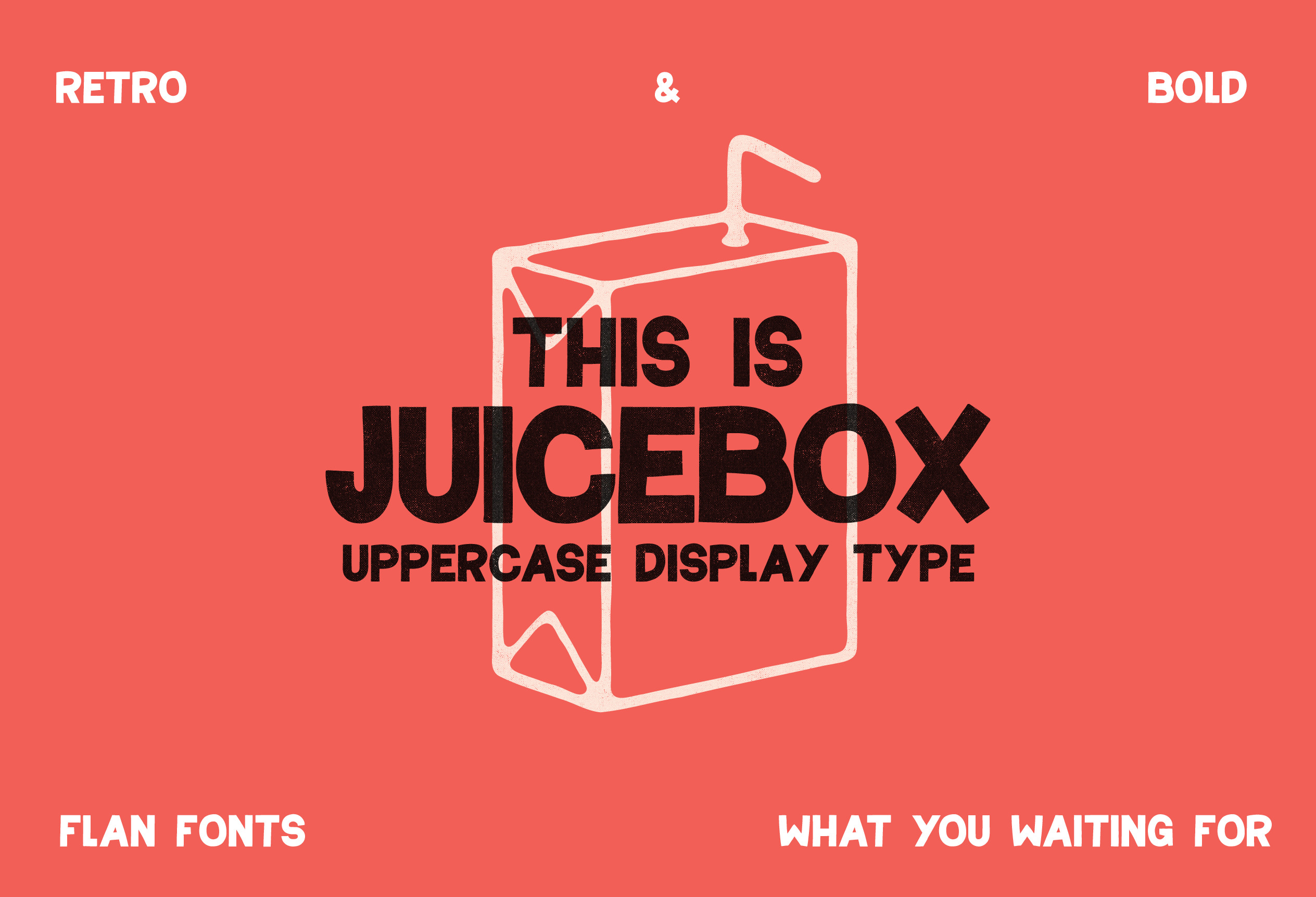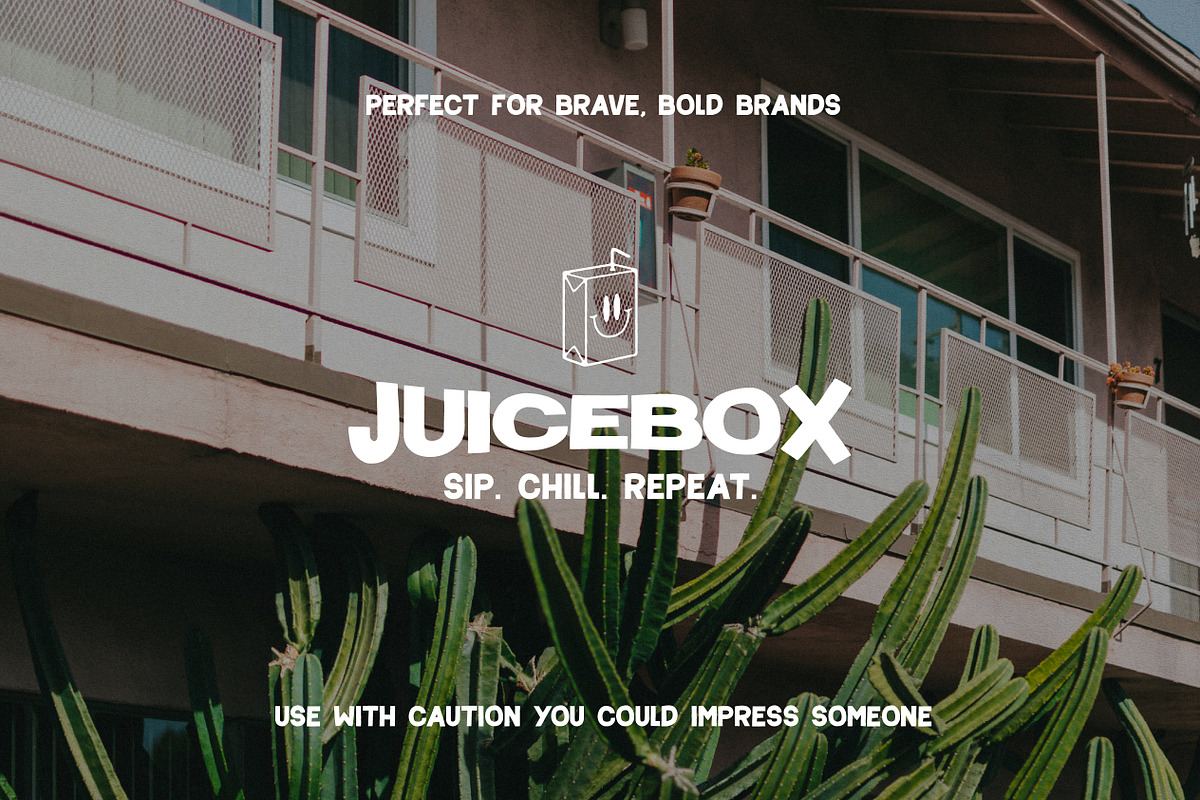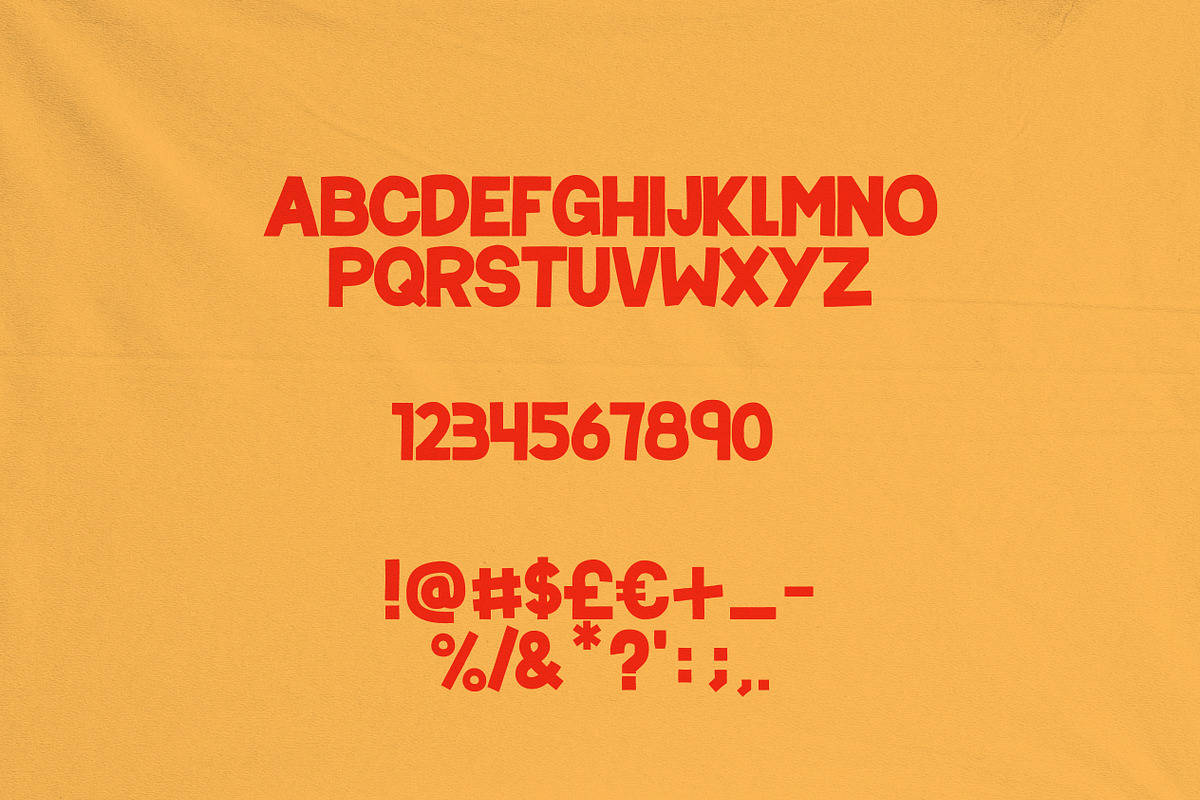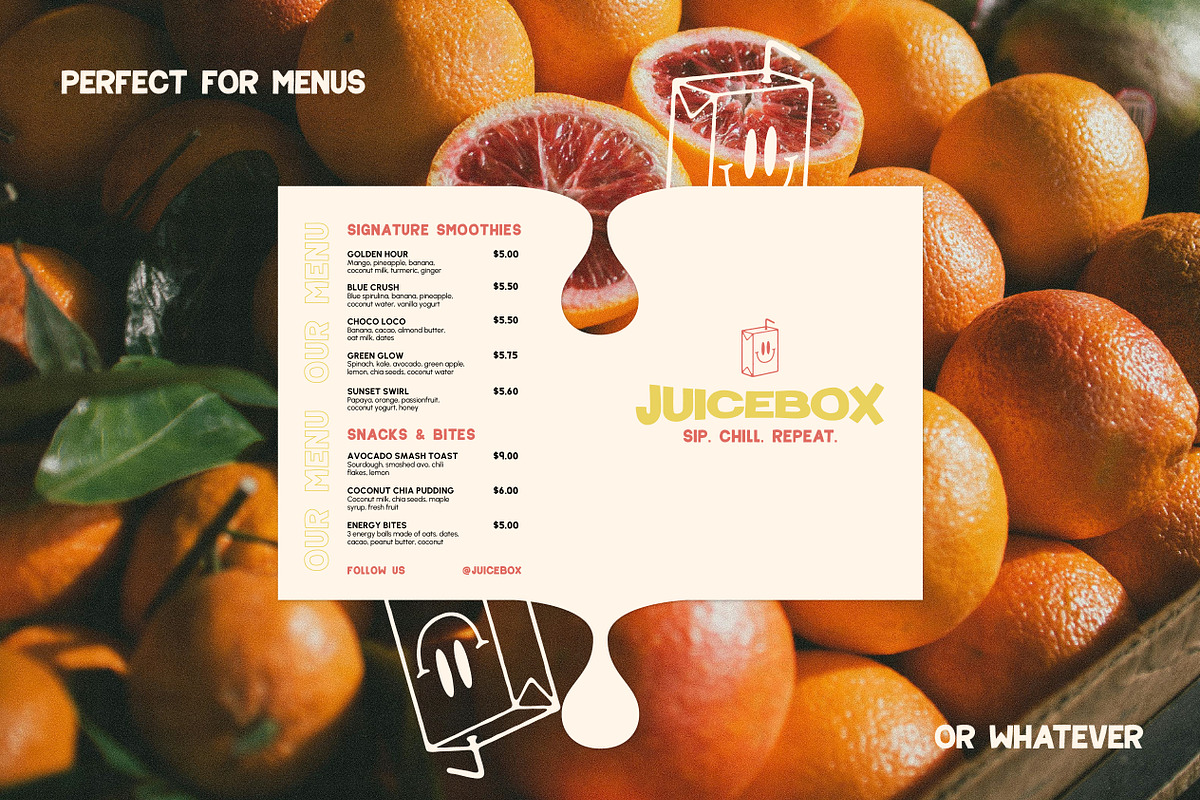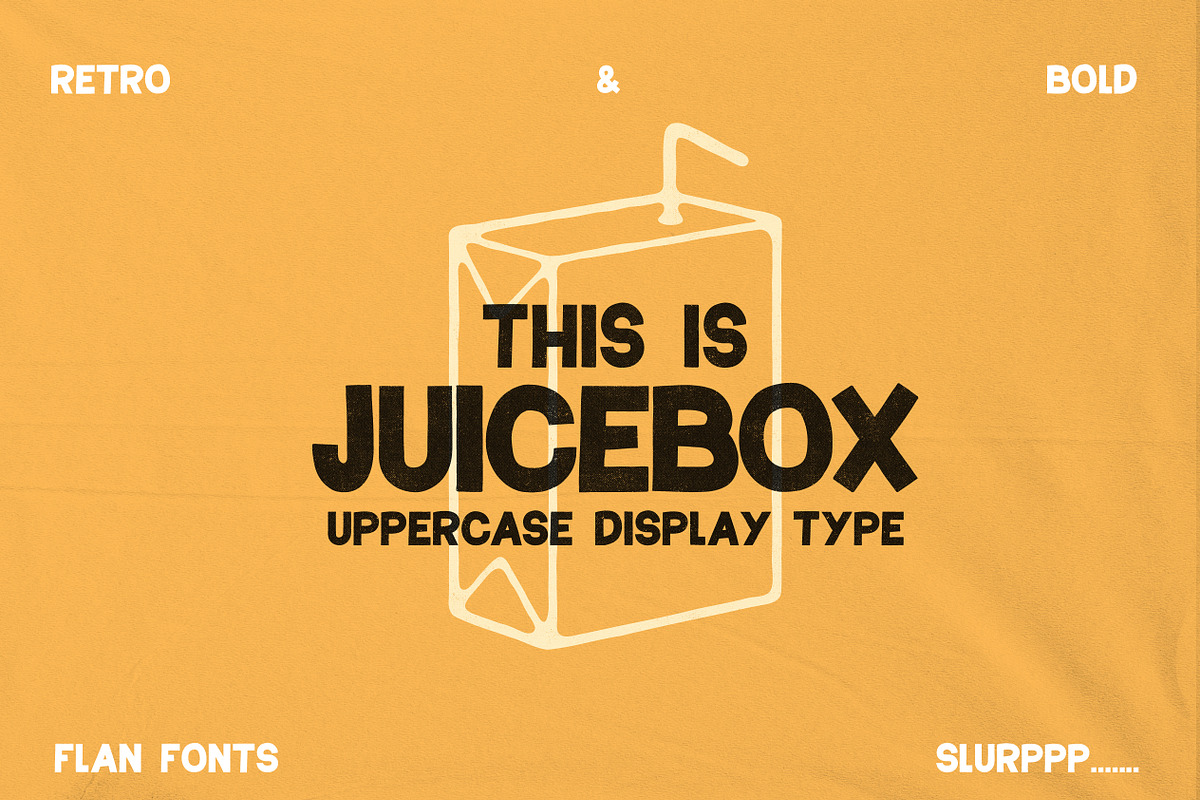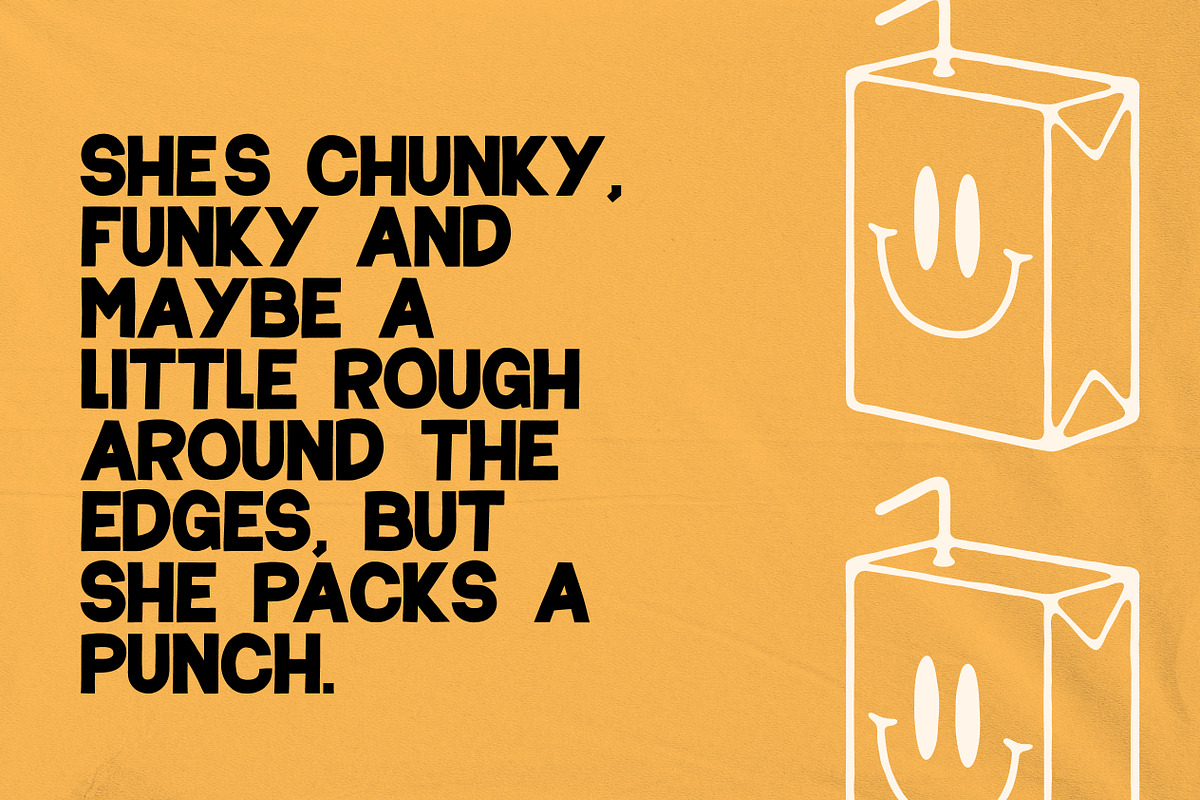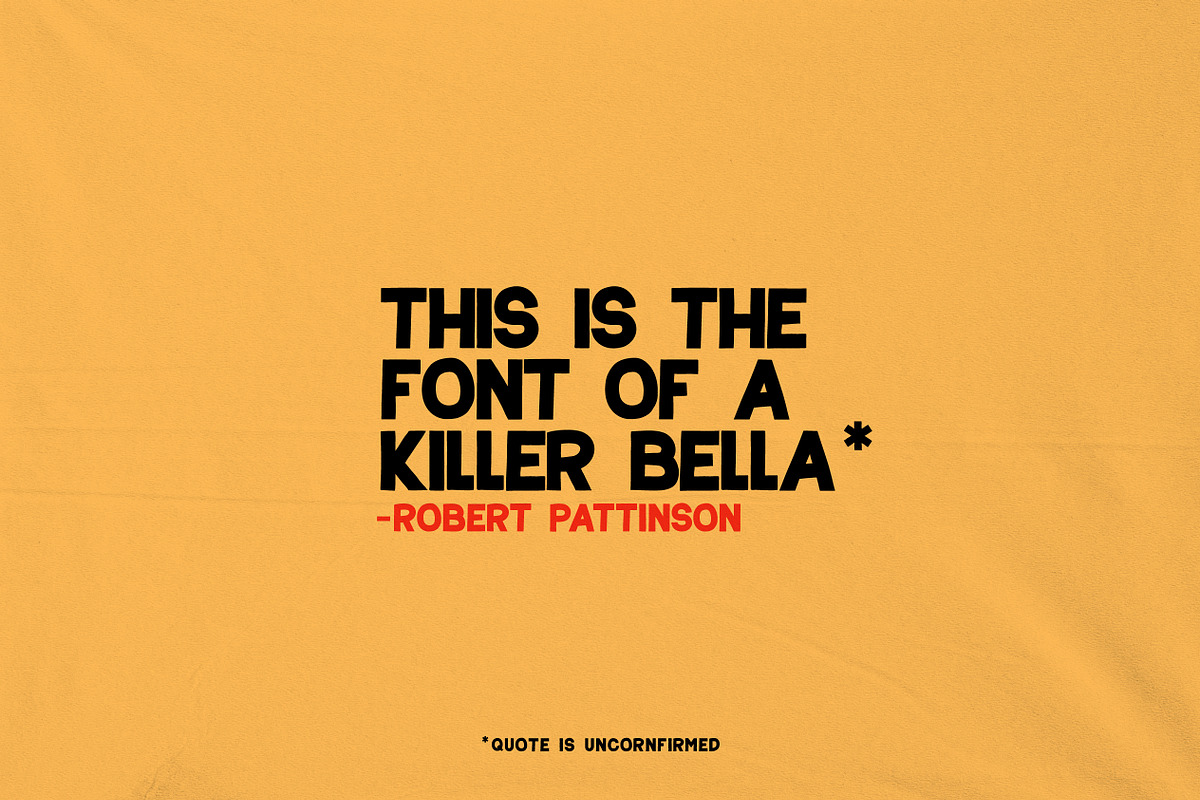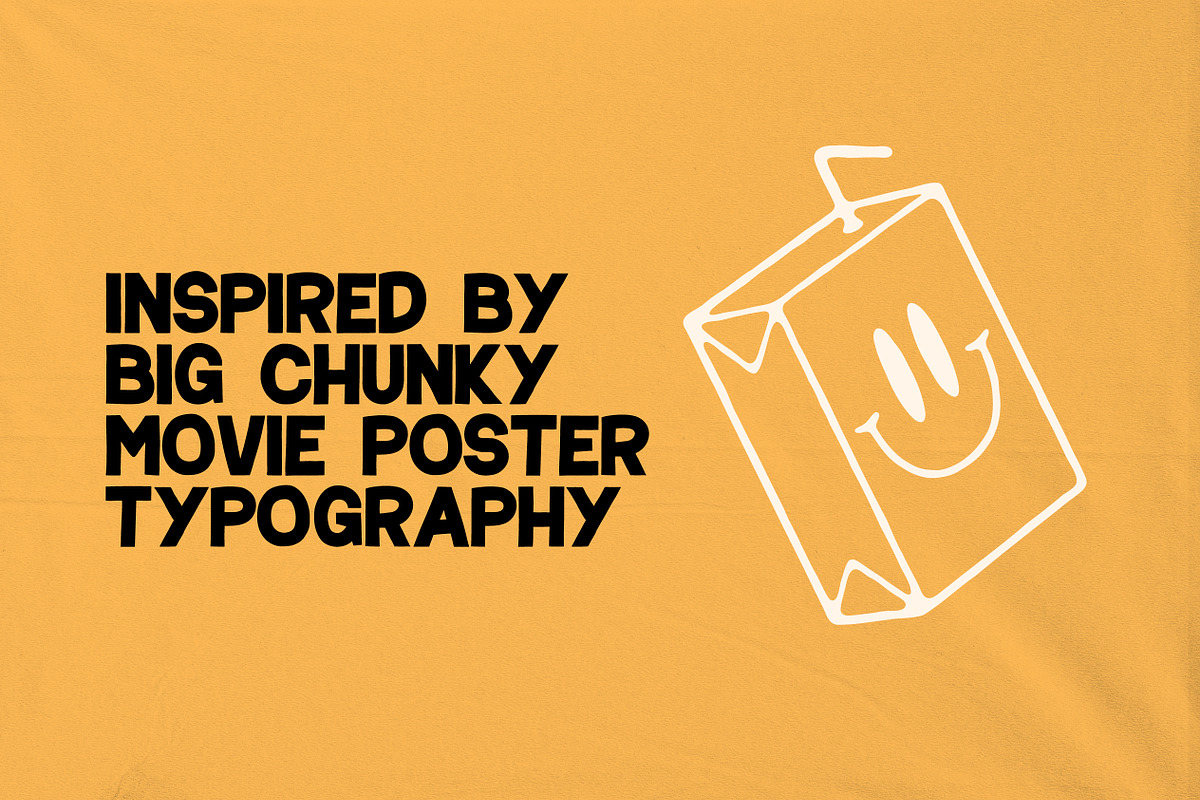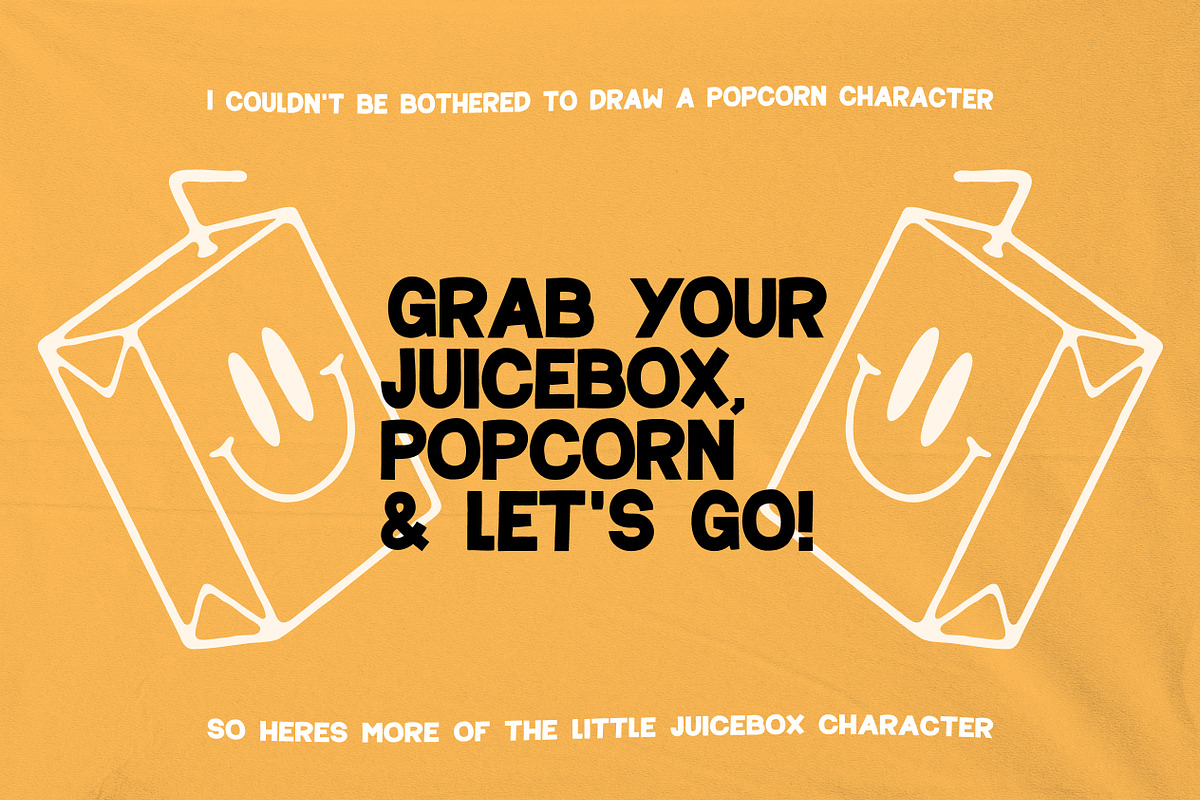
Retro uppercase bold font
MAKE SURE TO WRITE IN UPPERCASE!!!
Oh Juicebox you cheeky little font. She’s chunky, funky and maybe a little rough around the edges, but she packs a punch. A fully uppercase displace type that has symbols & numbers you’ll actually need! It could be your next poster font or a Bitchin brand the choice is yours. Inspired by old-school hand-drawn movie posters with their tight kerning and tall letterforms, this font is for the bold, brave and damn right crazy. **Use with caution you could impress your clients…
Where It Shines:
-✔️ Ideal for food & beverage branding, menus, and packaging
-✔️ Perfect for retro-inspired designs, posters, and social media graphics
-✔️ Adds a hand-crafted, artistic feel to logos and merchandise